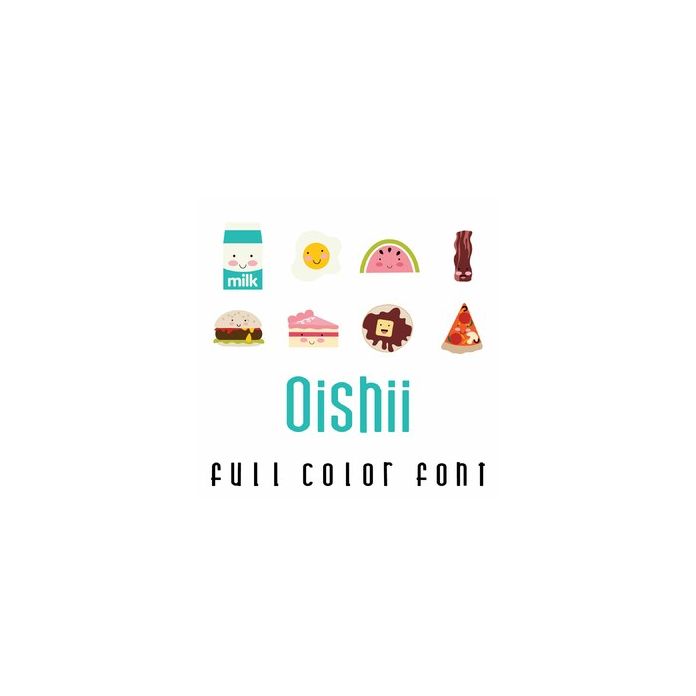
This adorable full color doodlebat font features fun kawaii style foods. Perfect for cards, crafts, gifts, decor, scrap book pages, planner stickers and more!